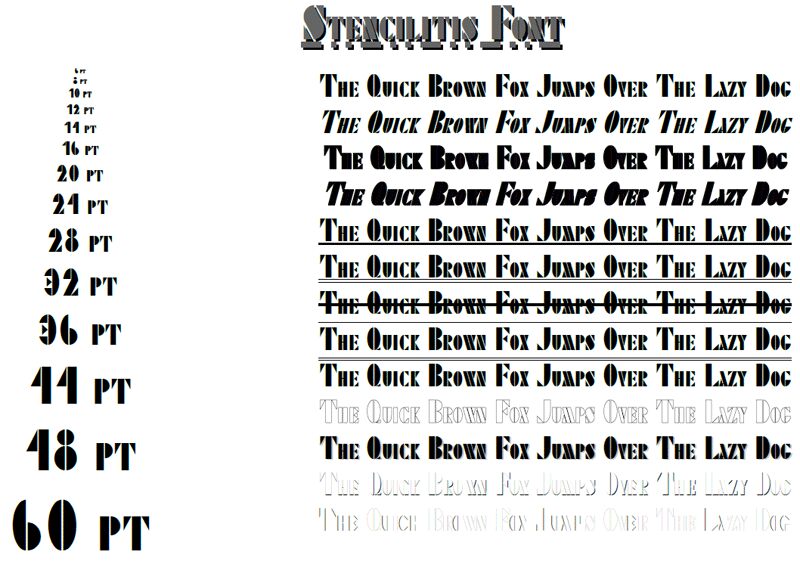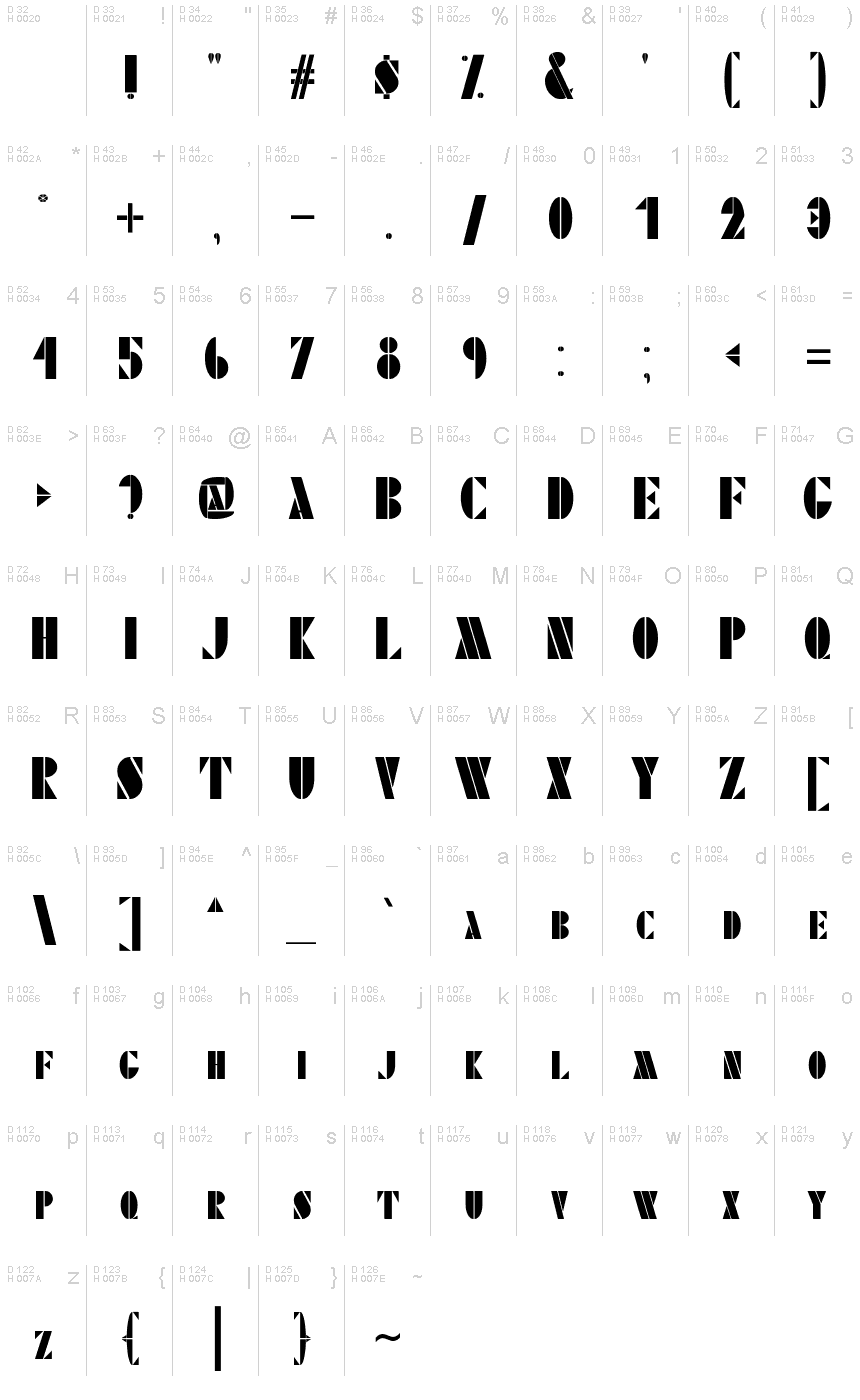
Stencilitis
Introducing Stencilitis, a bold and narrow stencil display font designed by Drusilla. Perfect for creating statement logos, posters and headlines that demand attention. Stencilitis is also ideal for adding a unique touch to apparel designs and signs.
This is based on stenciled lettering that I learned to draw when I was younger, and wanted to create a usable font that anyone can enjoy.